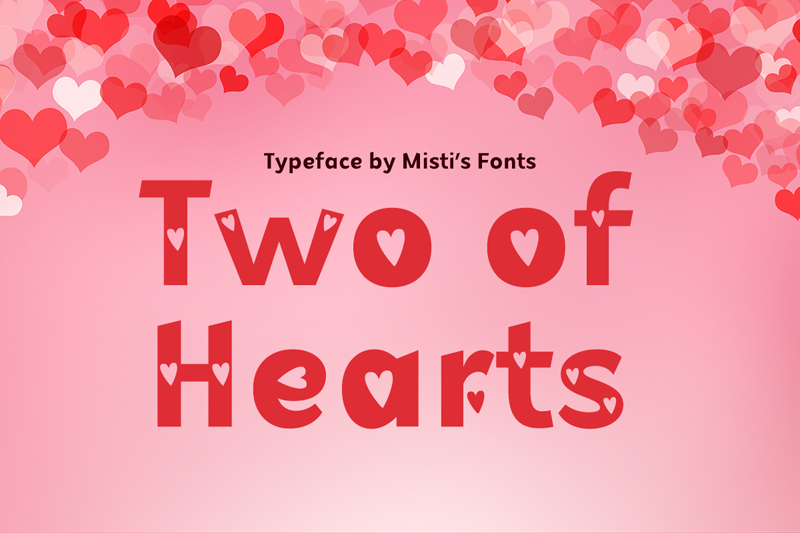
Font name: | Two of Hearts |
Two of Hearts is a love-filled display typeface that will add so much charm to your Valentine�s Day projects! You can create so many awesome designs, including stickers, shirts, greeting cards, coffee mugs, tumblers, prints and anything you can imagine. Terms Of Use and Commercial Licensing: https://mistifonts.com/two-of-hearts/ |